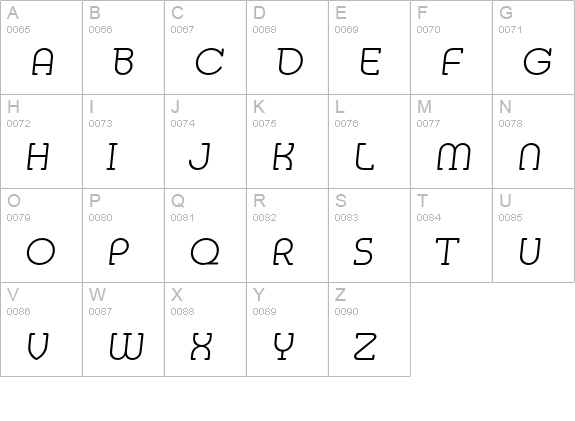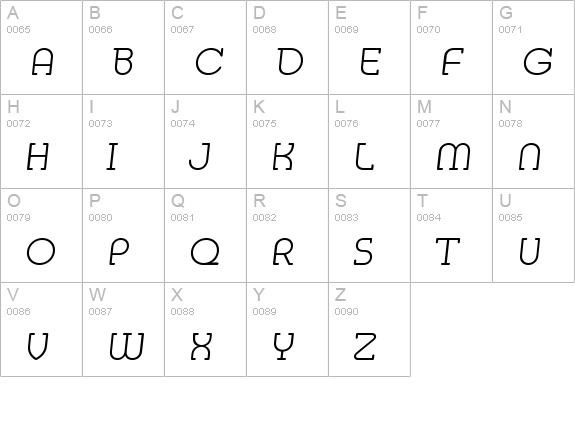
MediaSerifEF-ExtraLightItalic Font Details
MediaSerifEF-ExtraLightItalic is a beautifully designed font that exudes elegance and sophistication. Its extra light weight and italic style make it perfect for adding a touch of refinement to any project. This font is versatile and can be used for a variety of design purposes, from branding to editorial design. What makes MediaSerifEF-ExtraLightItalic even more appealing is that it is available for free download at FontsMarket.com. This means that you can easily access this stunning font without any cost, making it a valuable addition to your font collection. Whether you are a designer looking to enhance your projects or a typographer seeking a unique typeface, MediaSerifEF-ExtraLightItalic is sure to impress with its grace and charm. Download it now and elevate your designs with this exquisite font.